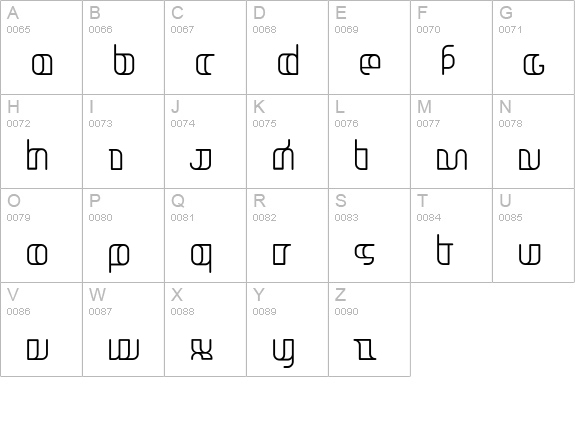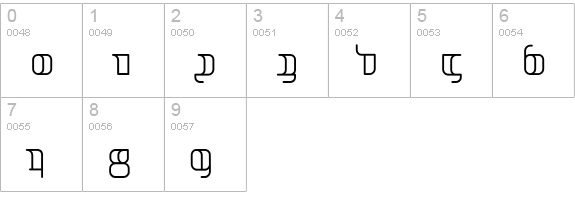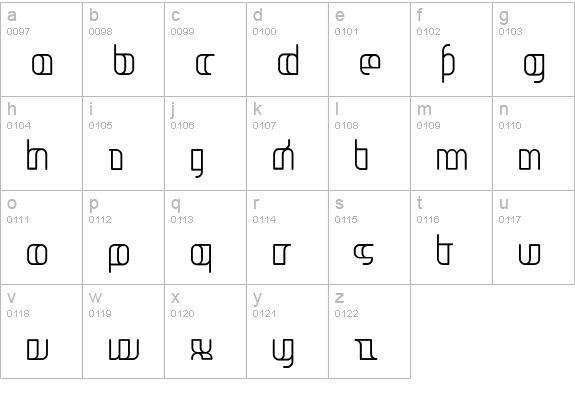
Jakone-Condensed is a distinctive, condensed-width variant in the Jakone typeface family \xE2\x80\x94 well suited to design and typography projects.
Jakone-Condensed font is a sleek and modern typeface that exudes elegance and sophistication. With its condensed design, it is perfect for projects that require a clean and professional look. The font features sharp lines and minimalistic curves, making it versatile for various design applications. Whether you are creating a logo, designing a website, or working on a branding project, Jakone-Condensed font will elevate your work to the next level. Its compact and streamlined form allows for efficient use of space without compromising readability. The letters are meticulously crafted, ensuring legibility even at smaller sizes. Not only does Jakone-Condensed font offer exceptional design aesthetics, but it also comes with the added bonus of being free. That's right, this incredible font is freely available to download at FontsMarket.com. Now you can enhance your projects without breaking the bank. Download Jakone-Condensed font today and experience the power of this versatile typeface. With its modern and refined style, it will undoubtedly make a lasting impression on your audience. Whether you are a professional designer or a hobbyist, this font is a must-have in your collection. Don't miss out on this incredible opportunity to elevate your designs with Jakone-Condensed font. Get it now and let your creativity soar.